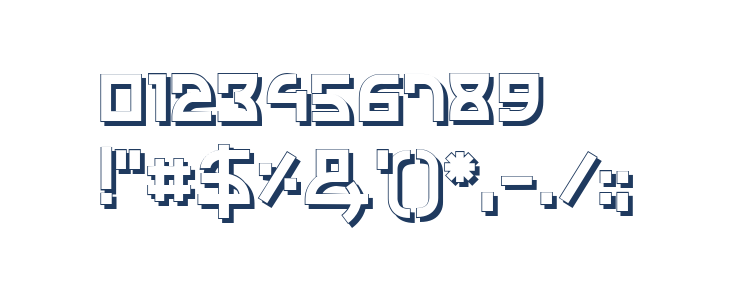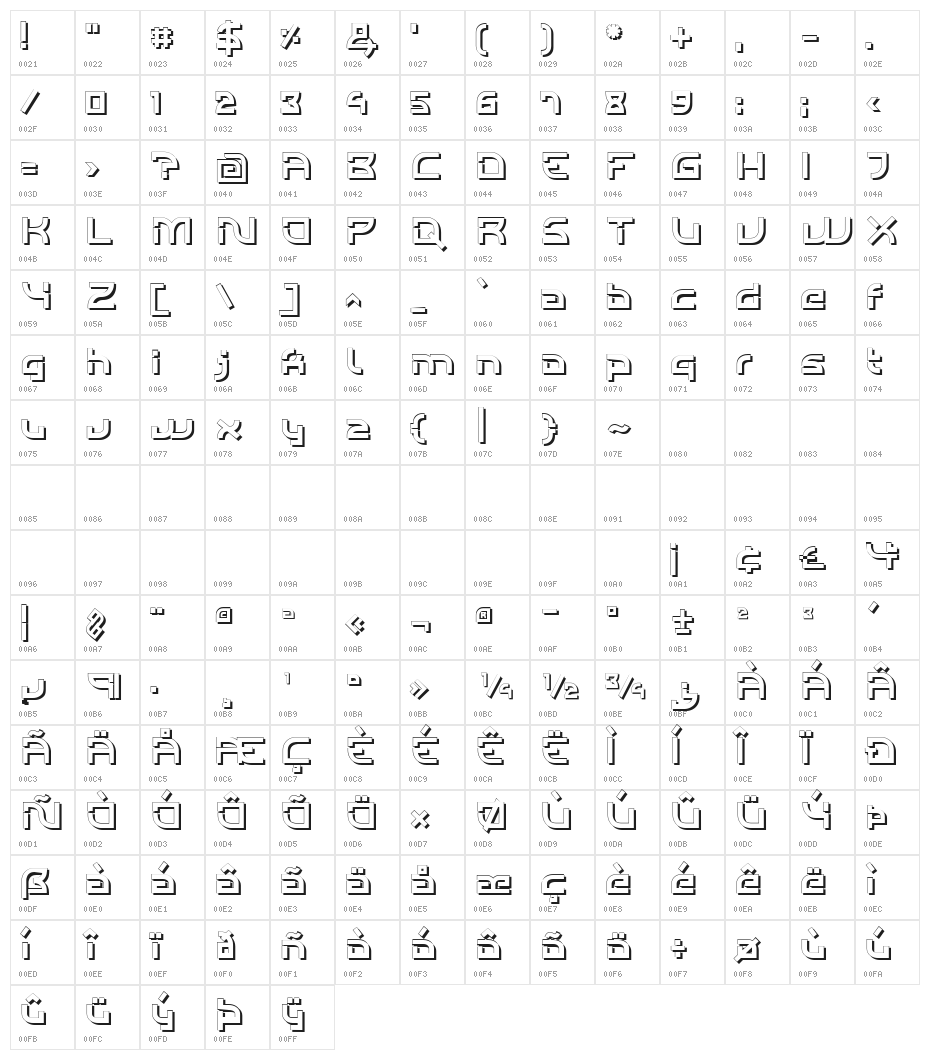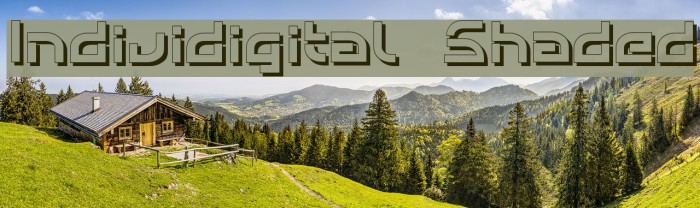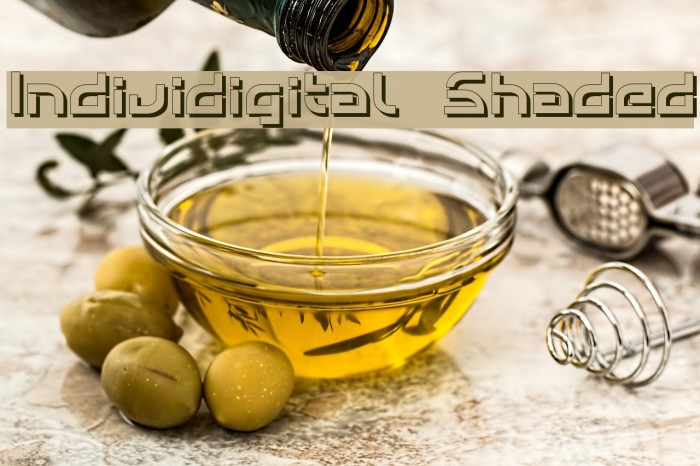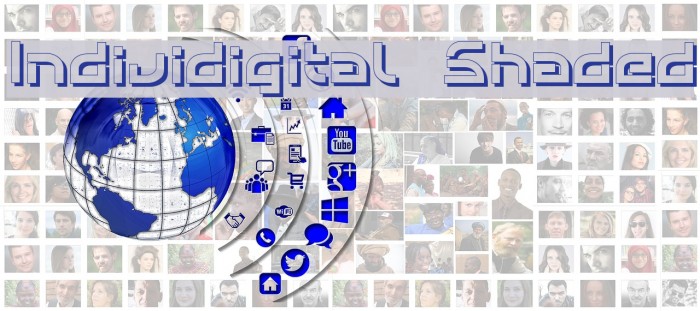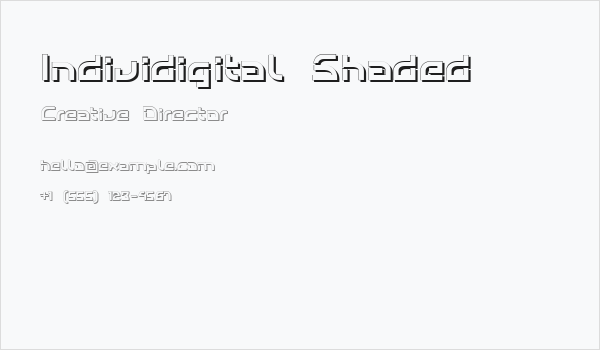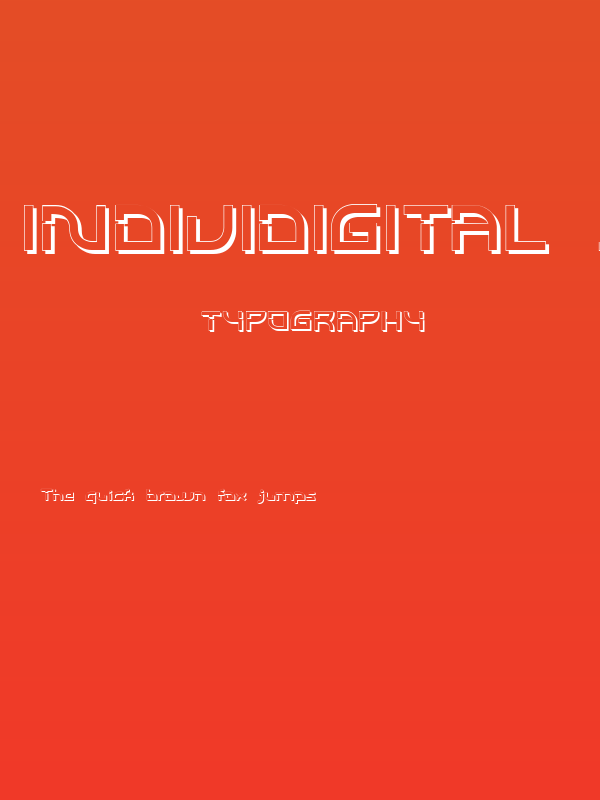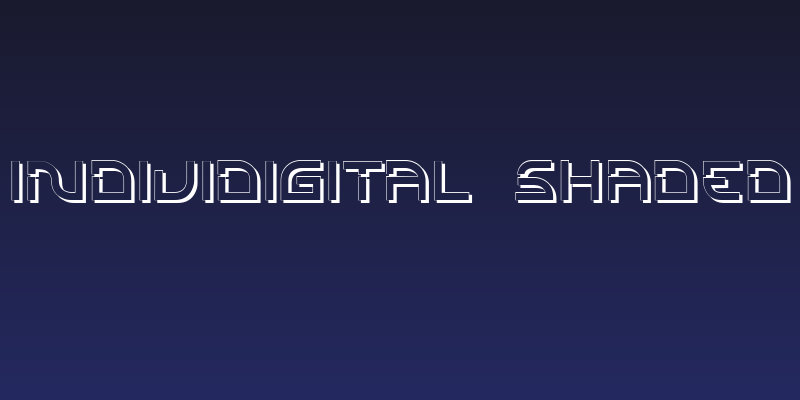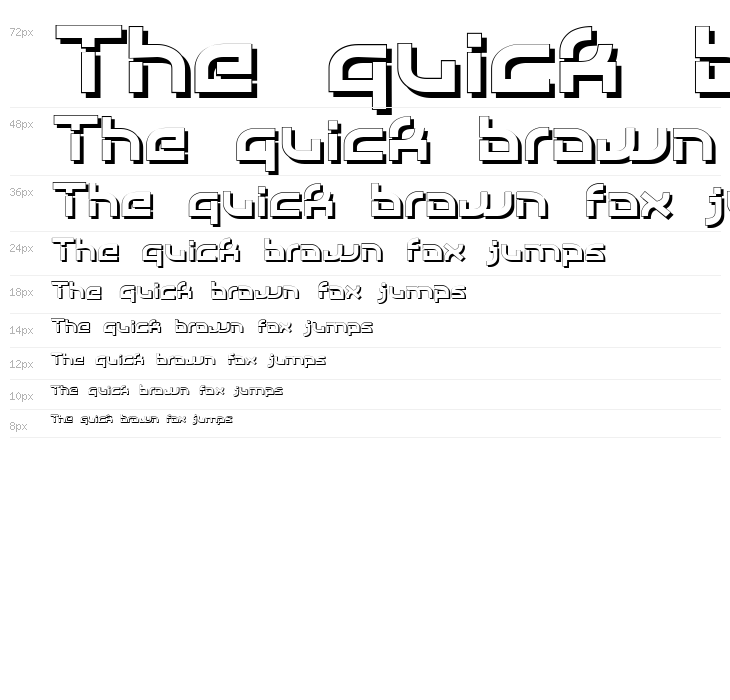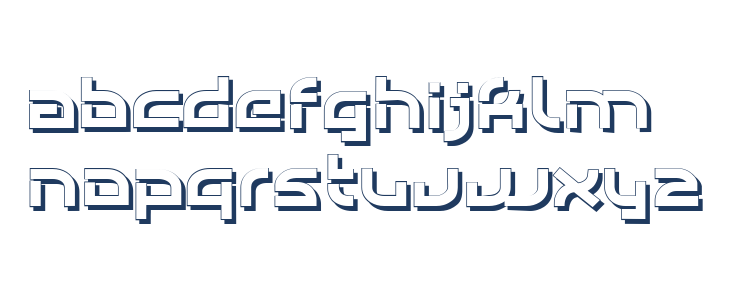
Individigital Shaded Font
Individigital Shaded Description
This font features a bold, geometric design with a distinct three-dimensional effect created by its shaded outline. The characters are constructed with clean, straight lines and sharp angles, giving it a futuristic and digital appearance. The uppercase and lowercase letters maintain a consistent style, with a uniform height and width that enhances readability. Numbers and special characters are designed to match the overall aesthetic, providing a cohesive look across all glyphs. The font's unique shading adds depth, making it stand out in various design applications.
Proposed ProjectsIdeal for digital interfaces, video game titles, tech branding, and futuristic posters.